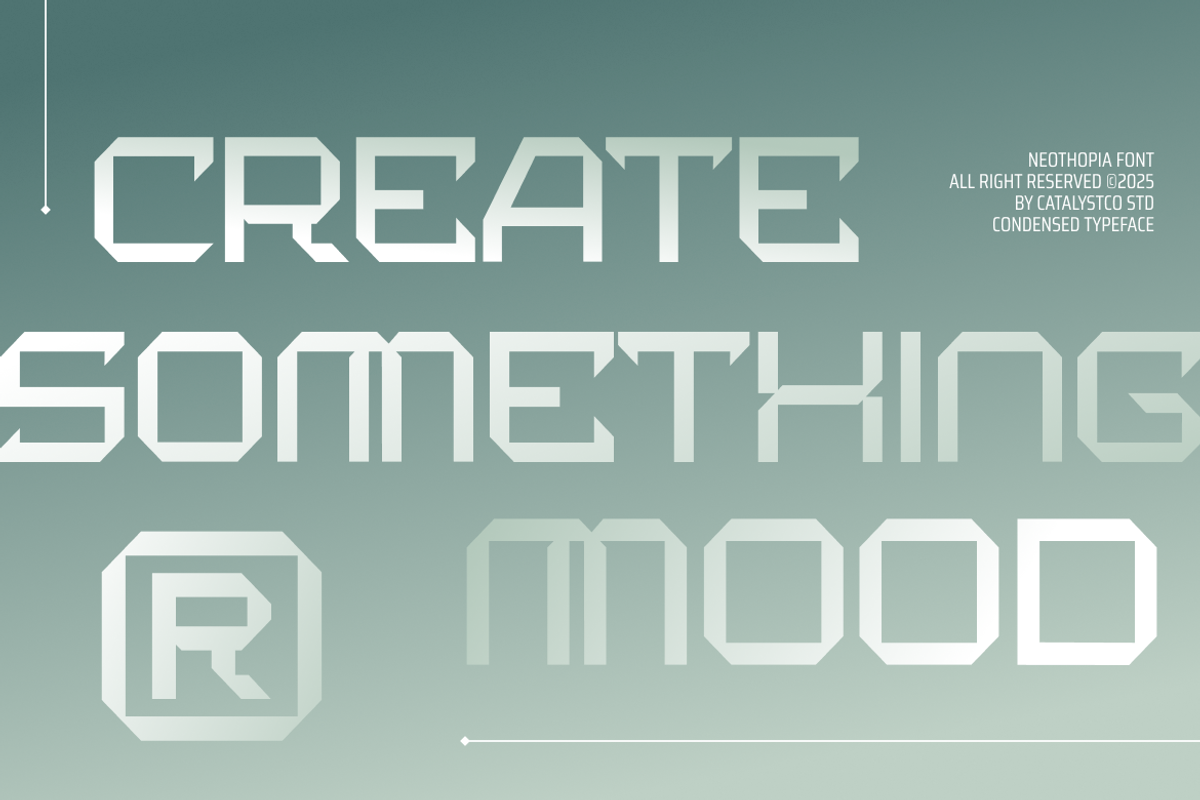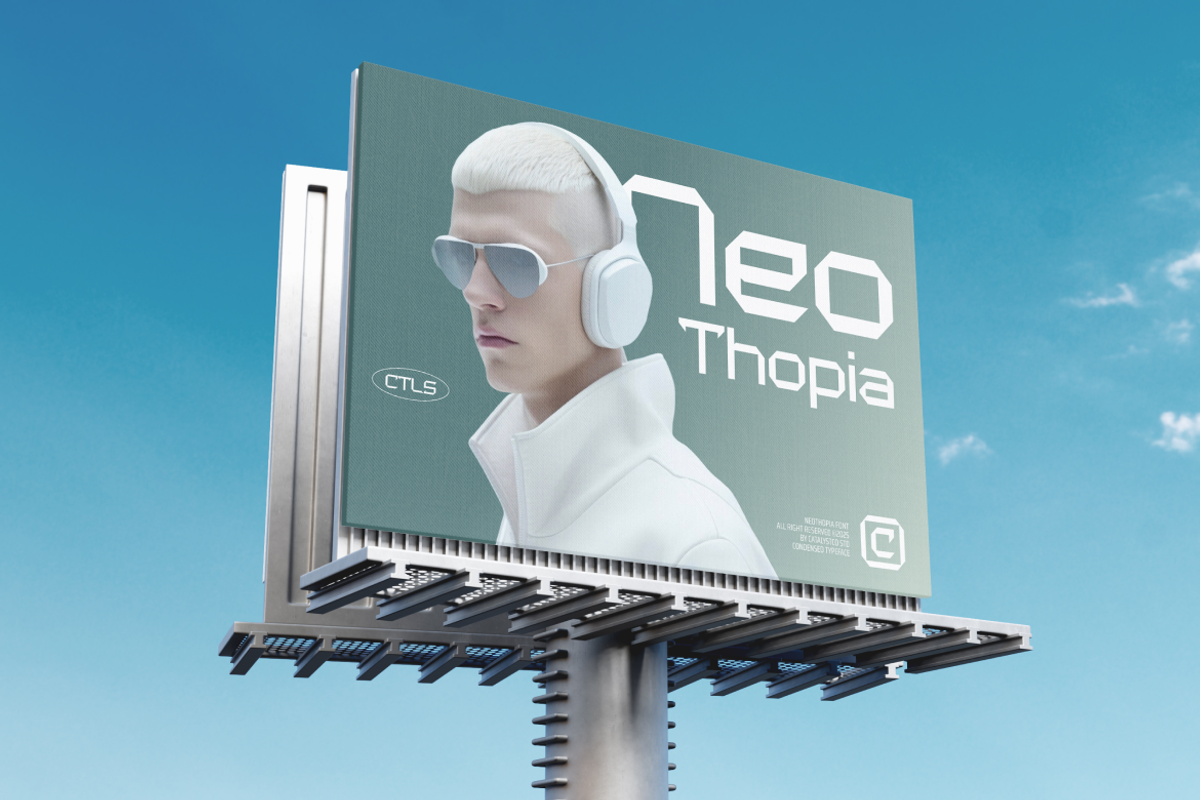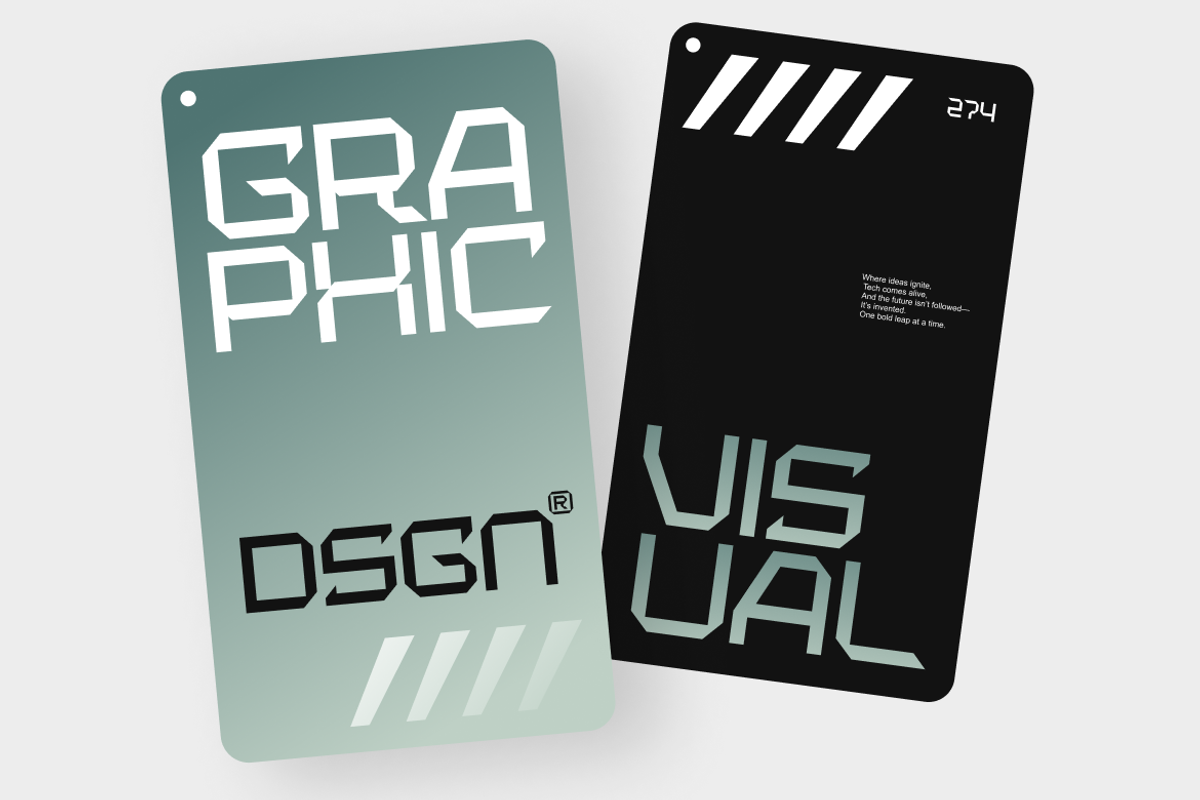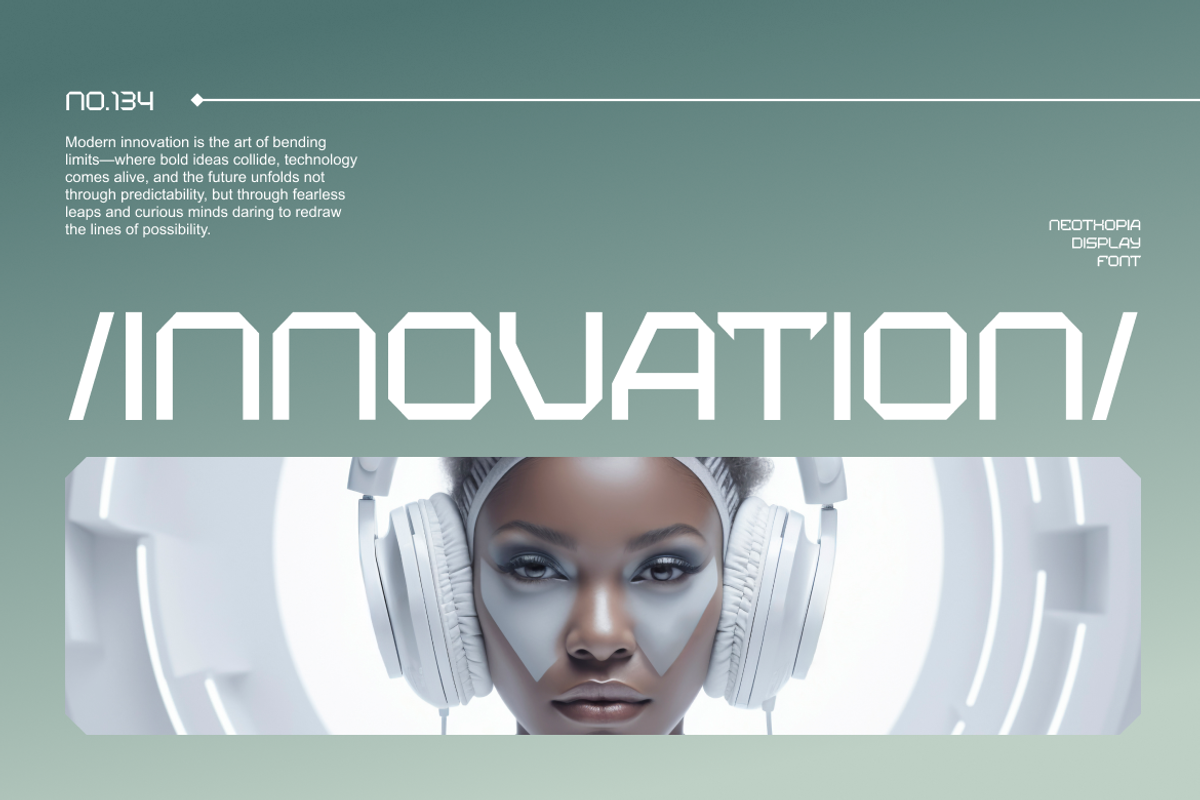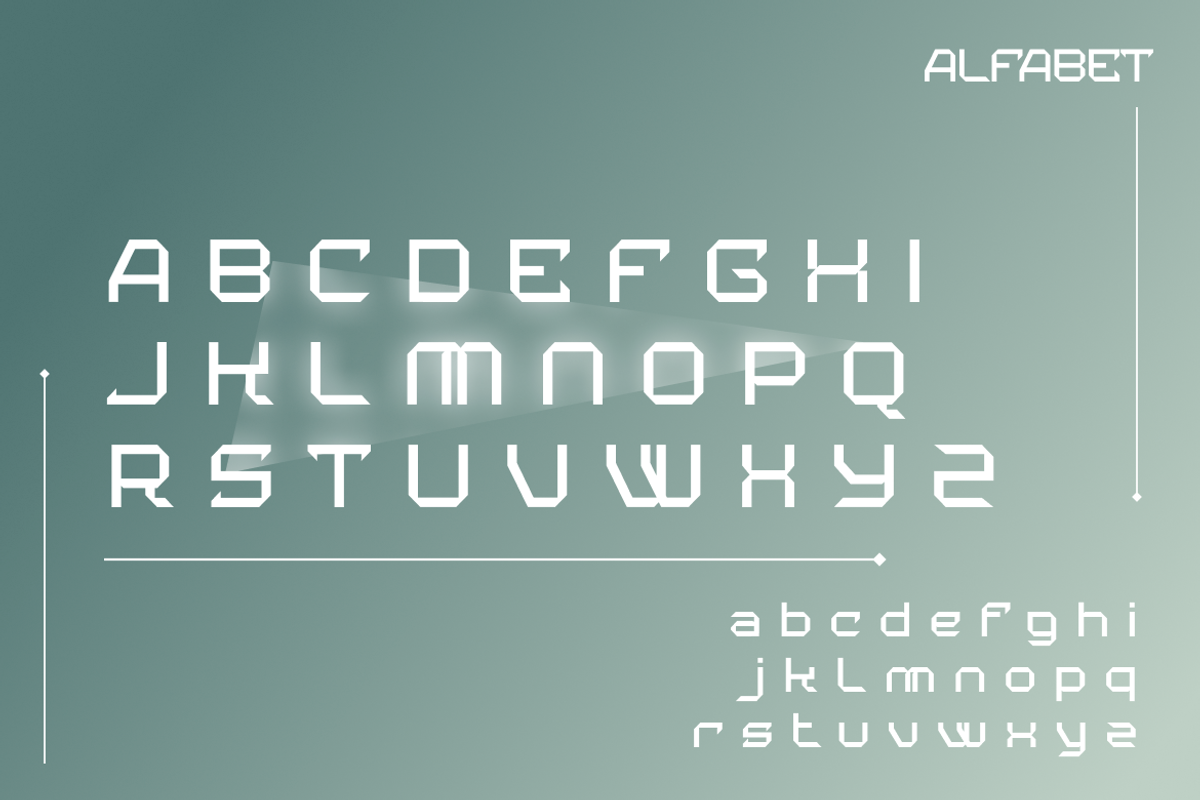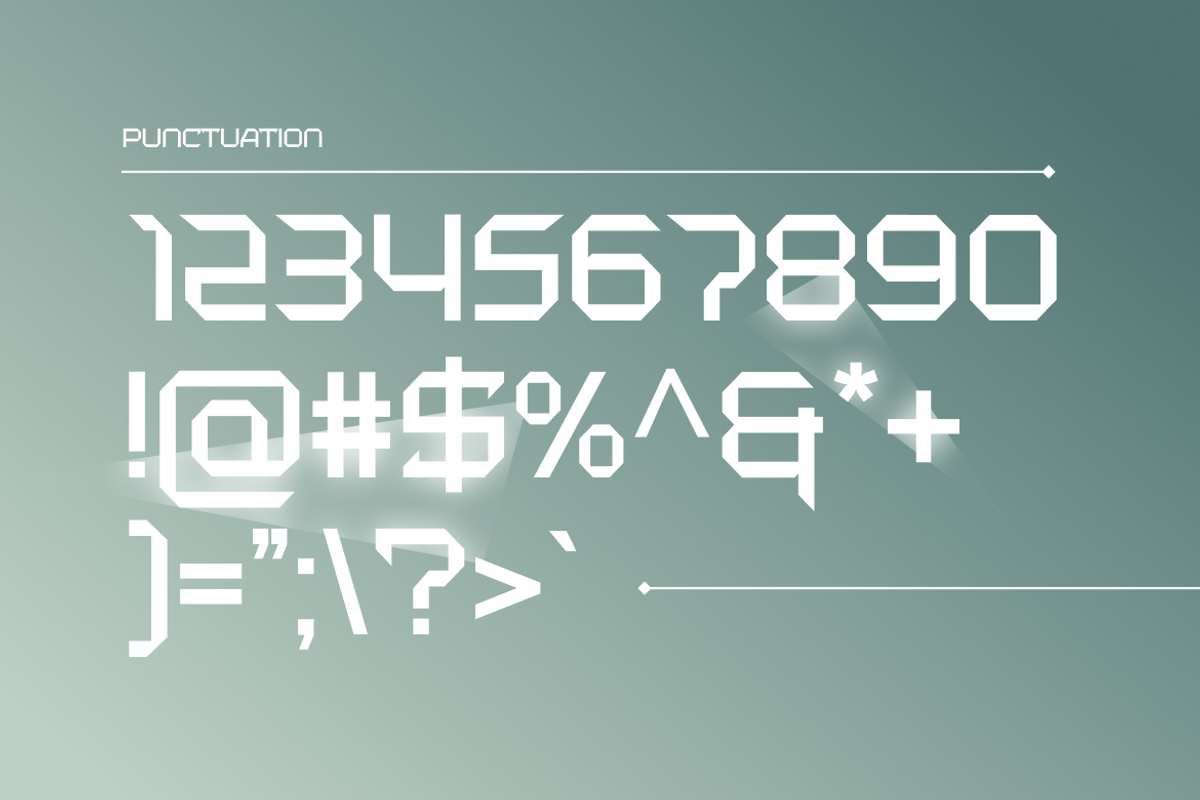
Neothopia Futuristic Display Fpnt
Neothopia is a modern futuristic display font with sharp, angular cuts and a sci-fi-inspired geometric structure. Crafted for headlines, branding, and tech-forward design, this font exudes innovation and a sleek digital aesthetic. It includes uppercase and lowercase letters, numerals, and essential punctuation perfect for UI interfaces, cyberpunk visuals, logos, posters, and cutting-edge presentations.
Neothopia is ideal for branding that embraces high-tech, gaming, or sci-fi aesthetics. It fits seamlessly in futuristic posters, product packaging, app and web interfaces, digital ads, streaming graphics, and more. Whether you're designing for a tech startup, virtual event, or game project, Neo Thopia provides a bold, distinctive typeface to stand out in a modern digital space.
- Futuristic geometric design with sharp angular cuts and modular forms
- Precision-built letterforms with tech-inspired structural clarity
- Minimal curves and high-straight-edge contrast for a digital feel
- Unique terminals and stylized diagonals for a sci-fi character
- Optimized spacing and balance for bold headlines and tech interfaces
- Branding systems aiming for a sleek, modern, and composed tone
- UI/UX templates for contemporary tech products and mobile interfaces
- Editorial layouts, minimalist magazines, and clean book designs
- Product packaging and labels with a crisp, professional aesthetic
- Social media kits and digital assets focused on elegant simplicity
Embrace tomorrow Neothopia brings futuristic clarity and bold precision to your design